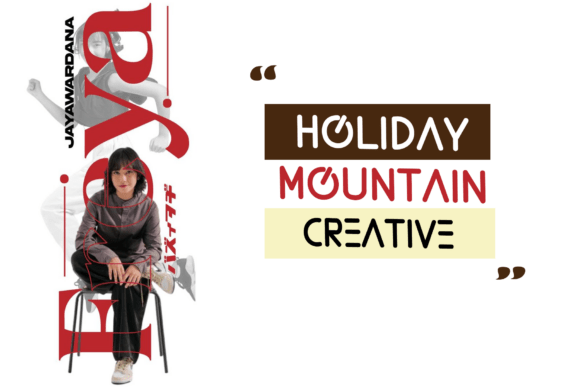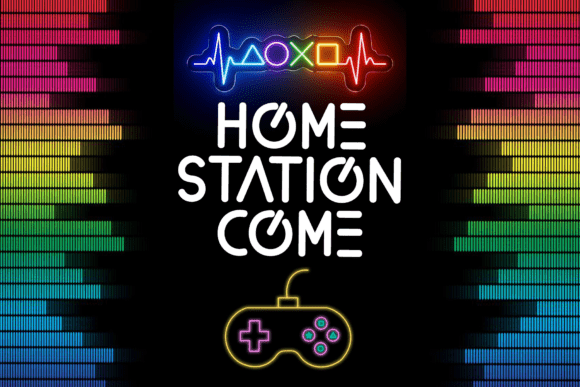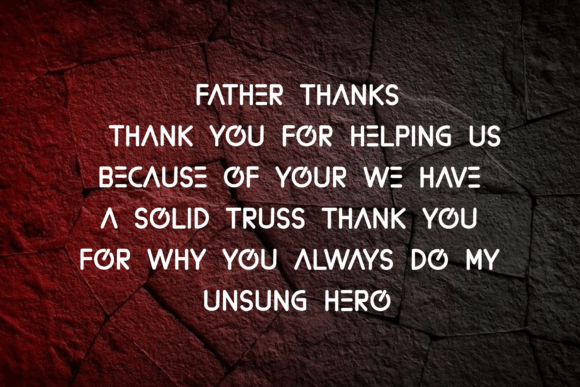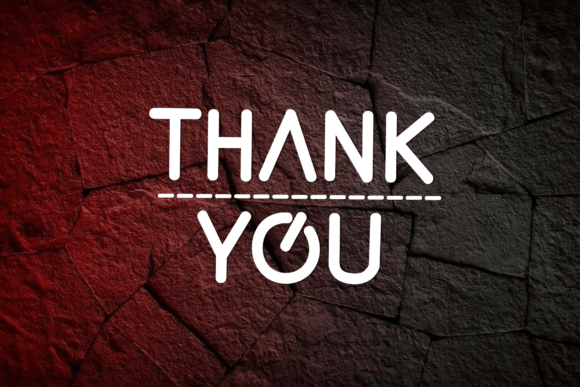
The Ultimate Guide to Creative Zone Font: Elevate Your Designs with a Futuristic Twist
I’ll never forget the time I was working on a sci-fi themed project for a client, and I was struggling to find the perfect font to capture the essence of a futuristic world. The client wanted something bold, modern, and out of this world – literally! After hours of scouring through font libraries, I stumbled upon Creative Zone, a highly stylized display font that instantly caught my attention. In this article, I’ll share my experience with Creative Zone, its features, and how to make the most of it in your designs.
First Impressions: What I Love About Creative Zone
Creative Zone is a game-changer for designers looking for a unique and futuristic font. Here are some things I love about it:
- ✨ Geometric precision: The font’s geometric structure gives it a robotic and architectural feel that’s perfect for sci-fi and tech-related projects.
- ✅ Rounded letterforms: The rounded edges of the letters add a touch of friendliness and approachability to the font.
- 💻 Open gaps and consistent line weight: The font’s design creates a rhythmic, modern aesthetic that’s both visually striking and easy to read.
Honest Review: The Not-So-Perfect Aspects
While Creative Zone is an amazing font, it’s not without its quirks. Here are a few things to keep in mind:
- 🤔 Limited use cases: Due to its highly stylized nature, Creative Zone works best in specific contexts, such as headings, titles, or signage. It might not be the best choice for body text or paragraphs.
- ⚠️ Legibility at small sizes: As with many display fonts, Creative Zone may not be legible at very small sizes. Make sure to test it at different sizes to ensure it works for your project.
The Story Behind Creative Zone
Creative Zone was designed with the goal of creating a futuristic and highly stylized display font that captures the essence of a technological world. The designer aimed to blend geometric precision with a unique, stencil-inspired structure to create a font that’s both modern and visually striking.
| Font Name | Creative Zone Font |
| Author | Sansana |
| What is Creative Zone best used for? | Creative Zone is best used for headings, titles, and signage in sci-fi, tech, and innovative projects. |
| Is Creative Zone suitable for body text? | No, Creative Zone is a display font and is not suitable for body text or paragraphs. |
| Is Creative Zone available in different weights and styles? | Creative Zone is available in a single weight and style, but it can be used in combination with other fonts to create a unique and stylized look. |